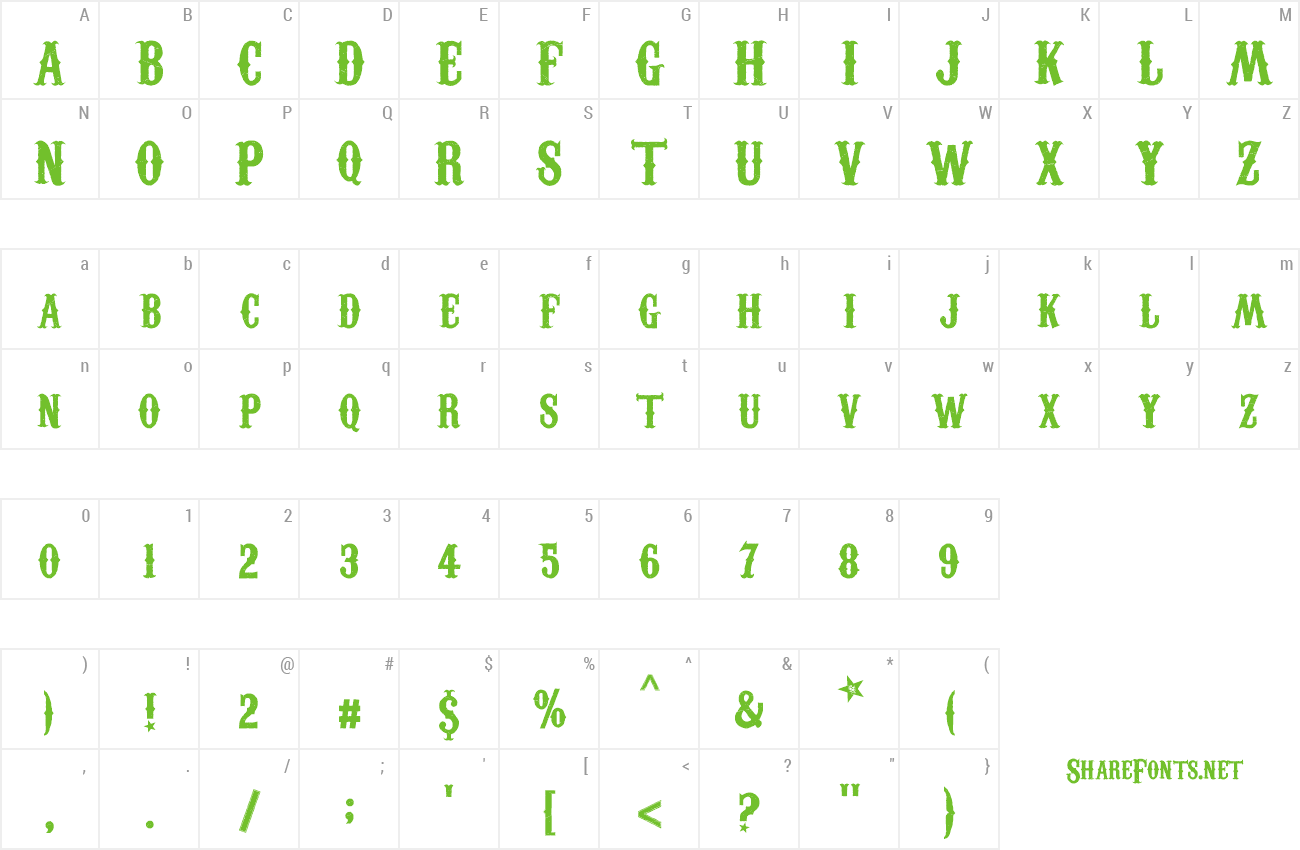
Carnivalee Freakshow Font - Dafont Free
Carnivalee freakshow font ttf. You can use the carnivalee freakshow to create interesting designs, covers, shop and store name. Download 186,286 free fonts at ufonts.com Font categories western vintage lettering wild west cowboys.
It is a wild west font created in 2004 and has been downloaded 492,463 times. Download the free carnivalee freakshow font by livin hell. The carnivalee freakshow font contains 653 beautifully designed characters.
Carnivalee freakshow is a ttf character that was designed in order to help you change the regular appearance of your papers. Carnivalee freakshow font | www.ffonts.net. Carnivalee freakshow by christopher hansen.